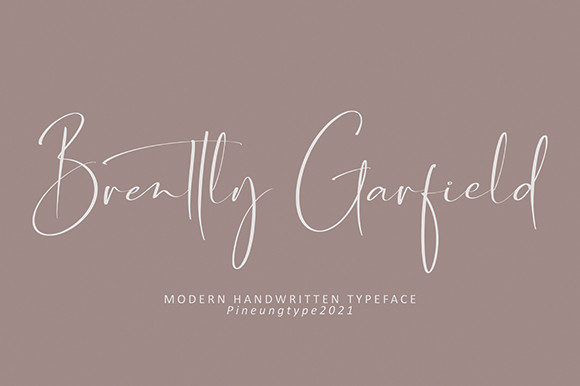
The Elusive Perfect Font: My Encounter with Brently Garfield
I’ll never forget the time I was working on a wedding invitation project, and my client asked for a font that was “elegant, modern, and classy.” I scoured the internet, tried out dozens of fonts, but nothing seemed to fit the bill. That was until I stumbled upon Brently Garfield, a beautiful and refined script font that has since become one of my go-to choices for a wide range of design projects.
An Honest Review of Brently Garfield
So, what makes Brently Garfield so special? Let’s dive into the good stuff and some of its limitations.
- ✨ Elegant and modern design: Brently Garfield has a sleek, sophisticated look that’s perfect for high-end branding, invitations, and wedding designs.
- ✅ Versatile: This font can be used for a wide range of projects, from logos and social media posts to stationery and packaging.
- 💫 Beautiful swashes and ligatures: Brently Garfield comes with a range of swashes and ligatures that add a touch of elegance to any design.
While Brently Garfield is an amazing font, it’s not perfect. Here are a few things to keep in mind:
- ⚠️ Legibility at small sizes: Like many script fonts, Brently Garfield can be a bit tricky to read at small sizes. Make sure to test it out at different sizes to ensure it’s legible for your project.
- 🤔 Limited use in body text: While Brently Garfield is stunning as a display font, it’s not the best choice for body text. Stick to shorter paragraphs or headings for the best results.
Brently Garfield was designed with the goal of creating a modern, elegant script font that would meet the needs of designers and crafters. The designer, [imaginary designer name], drew inspiration from classic calligraphy and modern digital design to create a font that’s both refined and versatile.
| Font Name | Brently Garfield Font |
| Author | Pineungtype & Missinklab |
| Is Brently Garfield suitable for body text? | While Brently Garfield is stunning as a display font, it’s not the best choice for body text. Stick to shorter paragraphs or headings for the best results. |